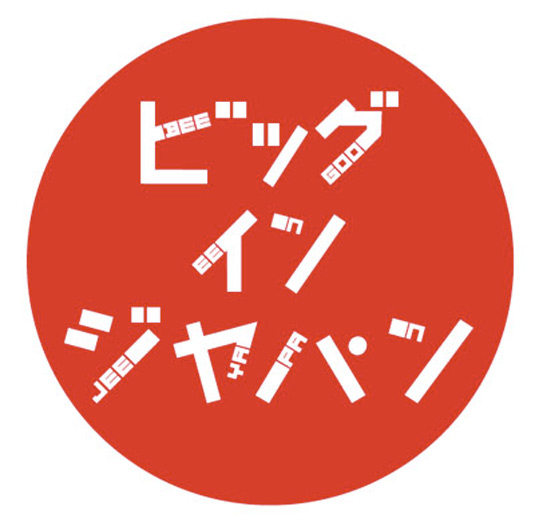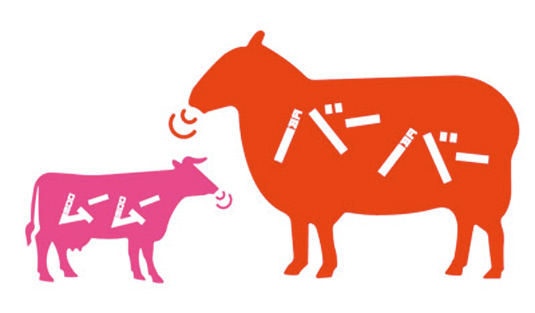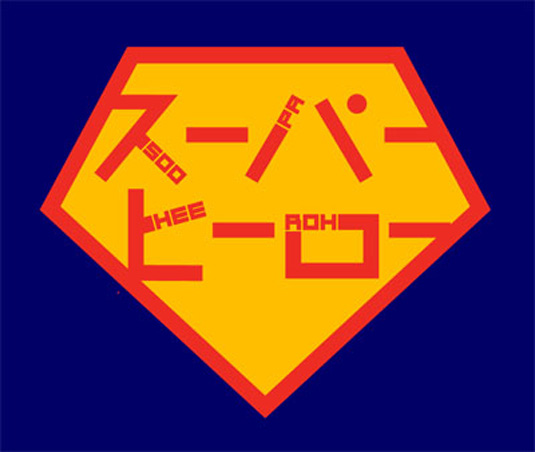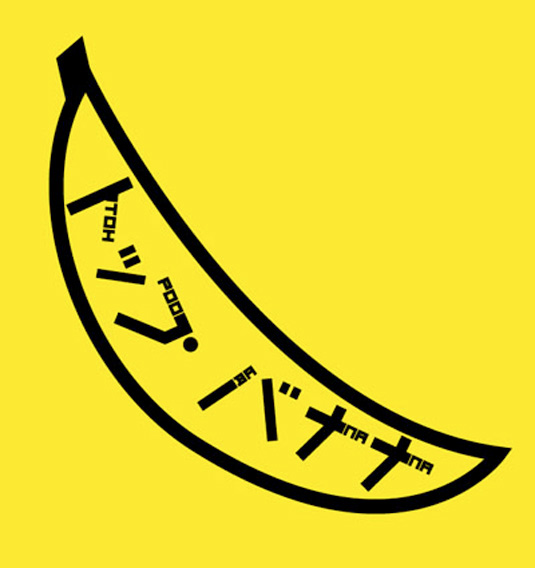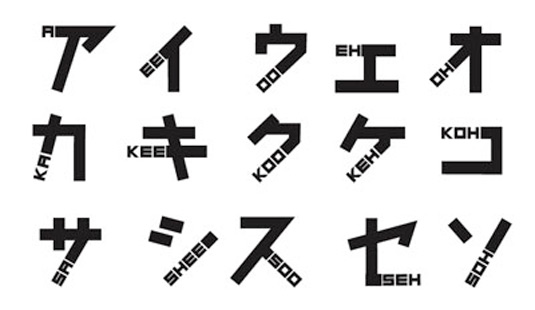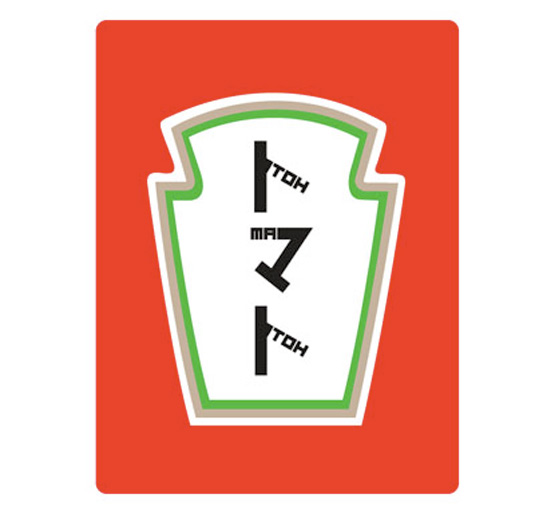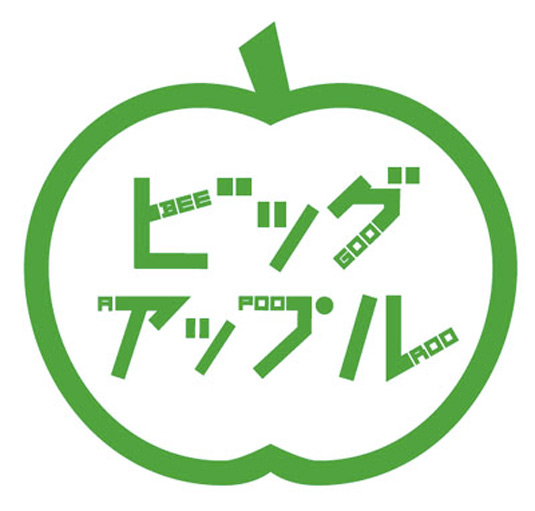
Learn Japanese with this phonetic font
Decipher Japanese script and turn it into English phonetic sounds with this unique typography.
Learning a new language can be a challenge at the best of times, but the level of difficulty immediately ramps up when you have to get to grips with a new script as well.
This was the challenge faced by one of the UK's top design studios, johnson banks. After multiple trips to Japan they still couldn't read the language, so they created this unique typeface that combines English language and Japanese script.
Out of the three typographic styles used in Japan, johnson banks settled on Katakana as the phonetic wordmark used to present foreign words (or at least, the uniquely Japanese pronunciation of said words).
By incorporating phonetic English sounds into Katakana shapes, johnson banks created Phonetikana, a readable hybrid for English speakers new to the language. Start reading Japanese right now with Phonetikana and the images below.